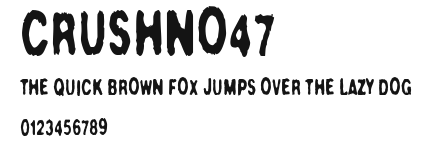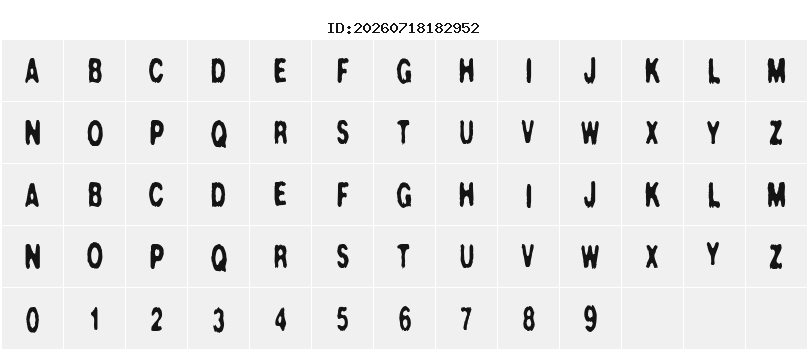
• Font Name: CrushNo47
• Full Font Name: CrushNo47
About CrushNo47.ttf
CrushNo47.ttf is a modern, elegant sans-serif font designed for ultimate readability and visual harmony. Perfect for branding, headlines, web design, and print materials.